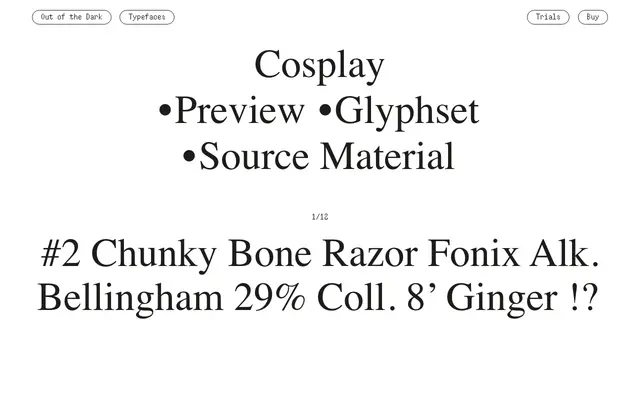
A single-style display typeface from Swiss foundry Out of the Dark, built around a distinctive expressive character.
Released as a single Regular style, Cosplay sits within Out of the Dark's catalogue of experimental and expressive display faces. The foundry's preview text references chunky, bone-like and razor-sharp formal qualities, suggesting a typeface with strong structural contrast or angular construction. Suited to editorial headlines, poster work and visual identities where a singular, committed voice is required.
The name, sample text referencing chunky bones and razors, and single-style release all point to a display typeface with a distinctive, expressive character rather than a text or functional workhorse.